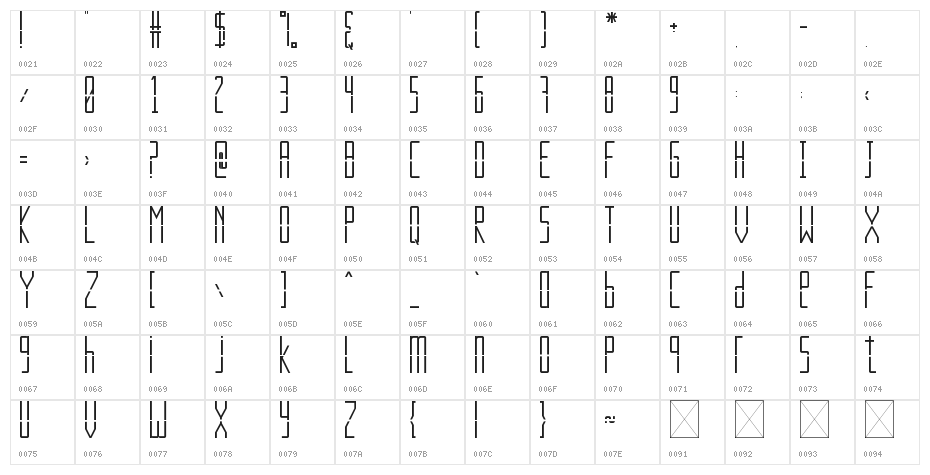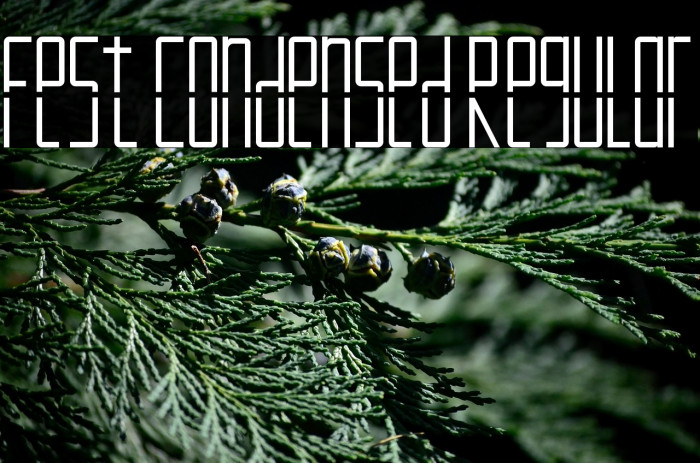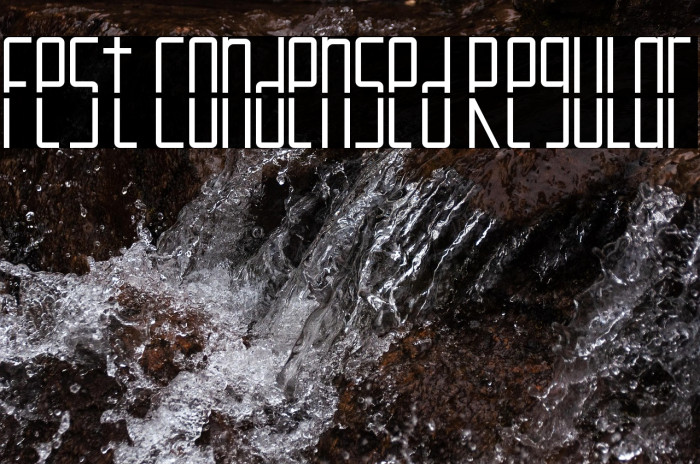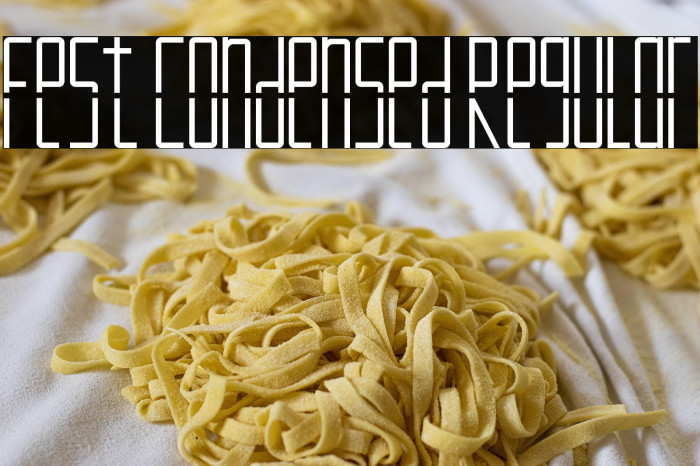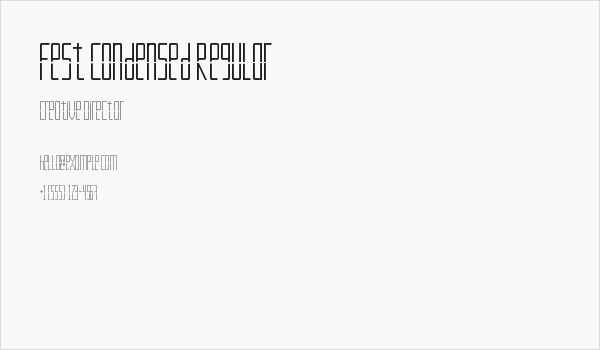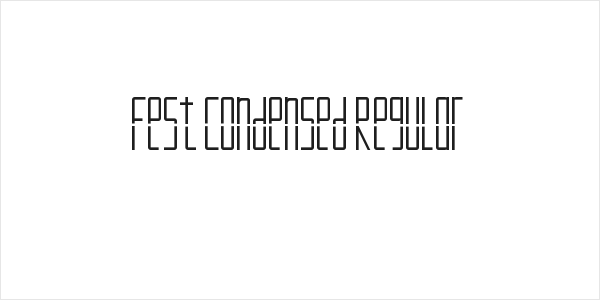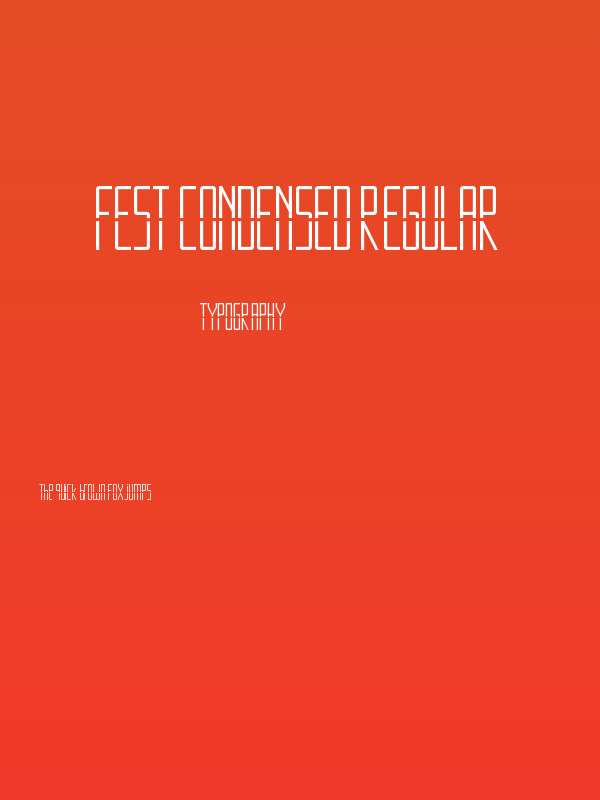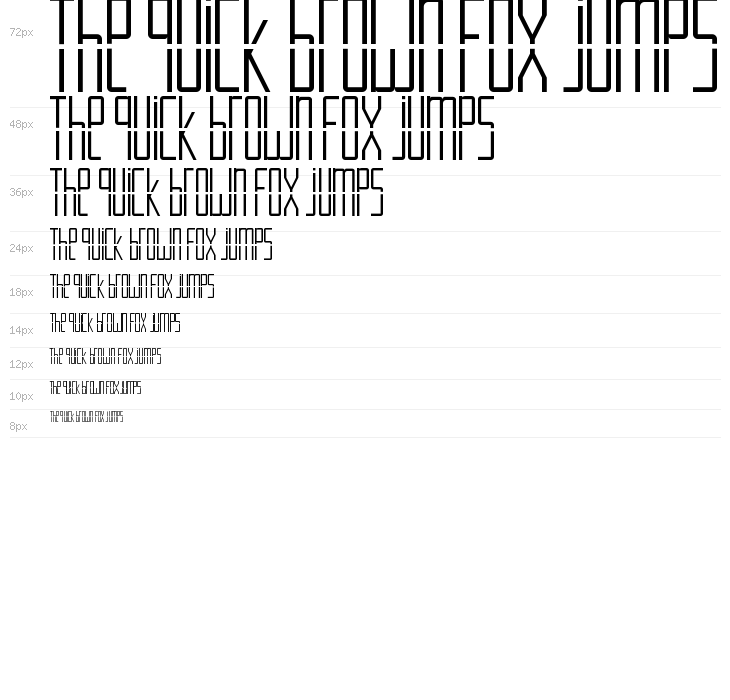
Fest Condensed Regular Font
Fest Condensed Regular Description
This font features a highly condensed and geometric style, characterized by its tall, narrow letterforms and minimalistic design. The strokes are consistent in weight, providing a uniform appearance across all characters. The angular and straight lines give it a modern and futuristic feel, while the lack of curves and embellishments emphasizes simplicity and clarity. The spacing between characters is tight, enhancing the compact nature of the font. It is particularly effective in creating a bold visual impact without the need for additional weight.